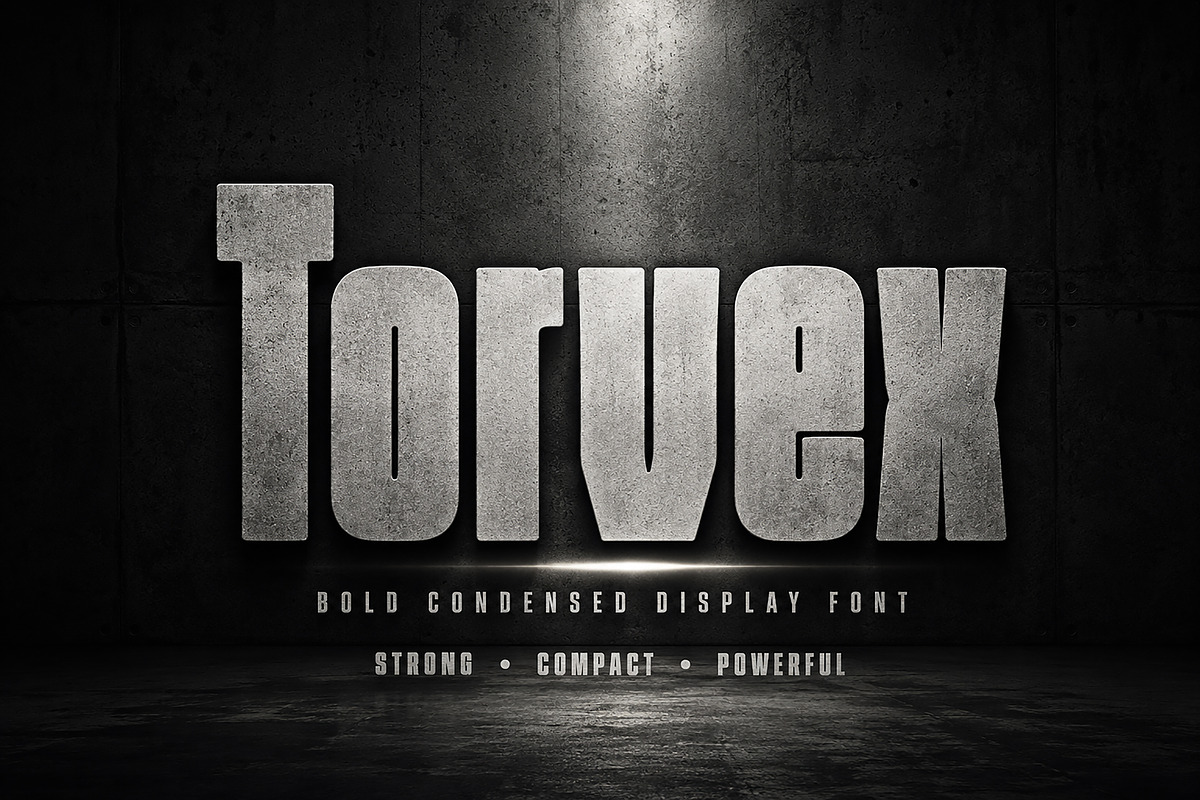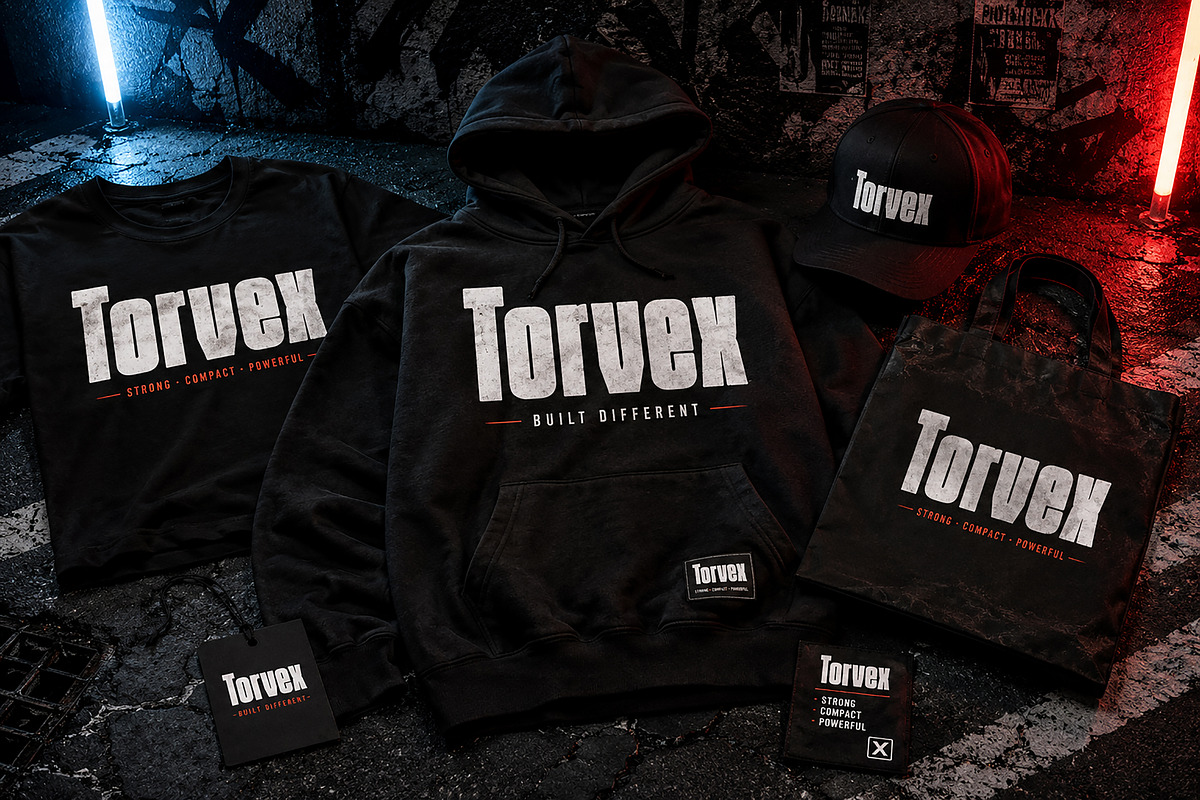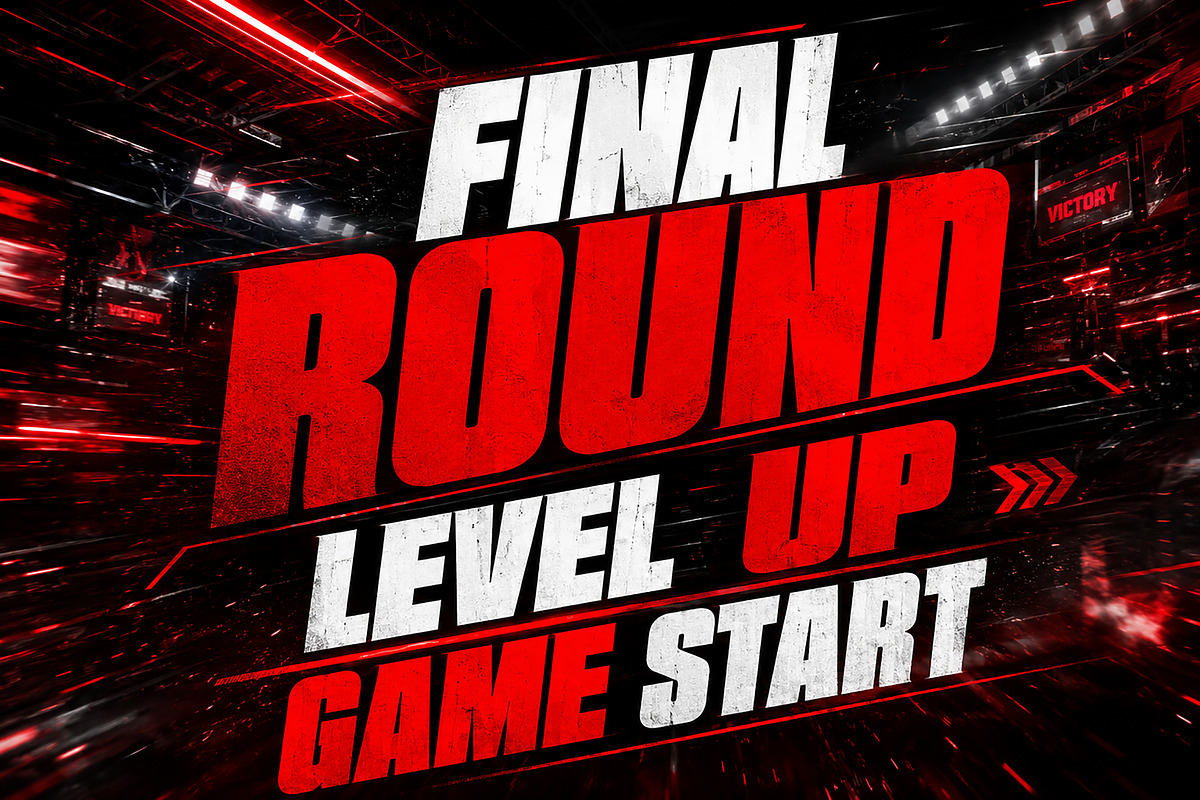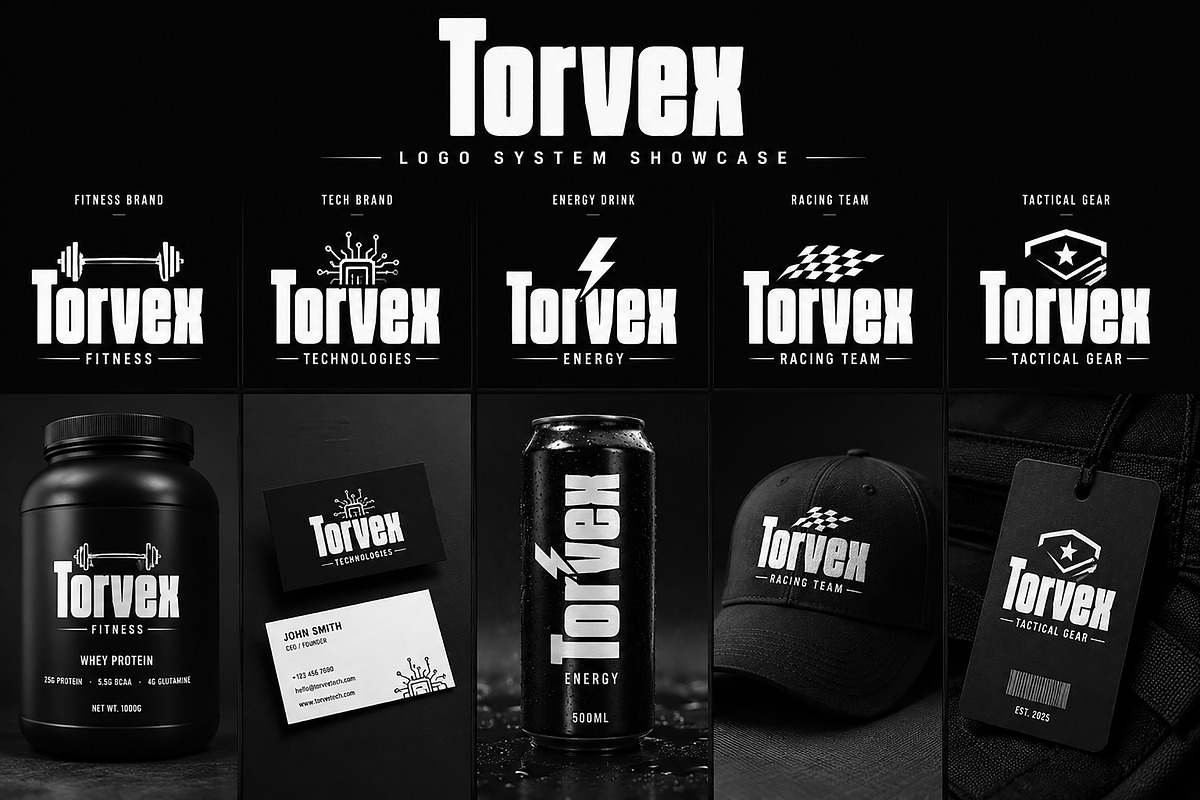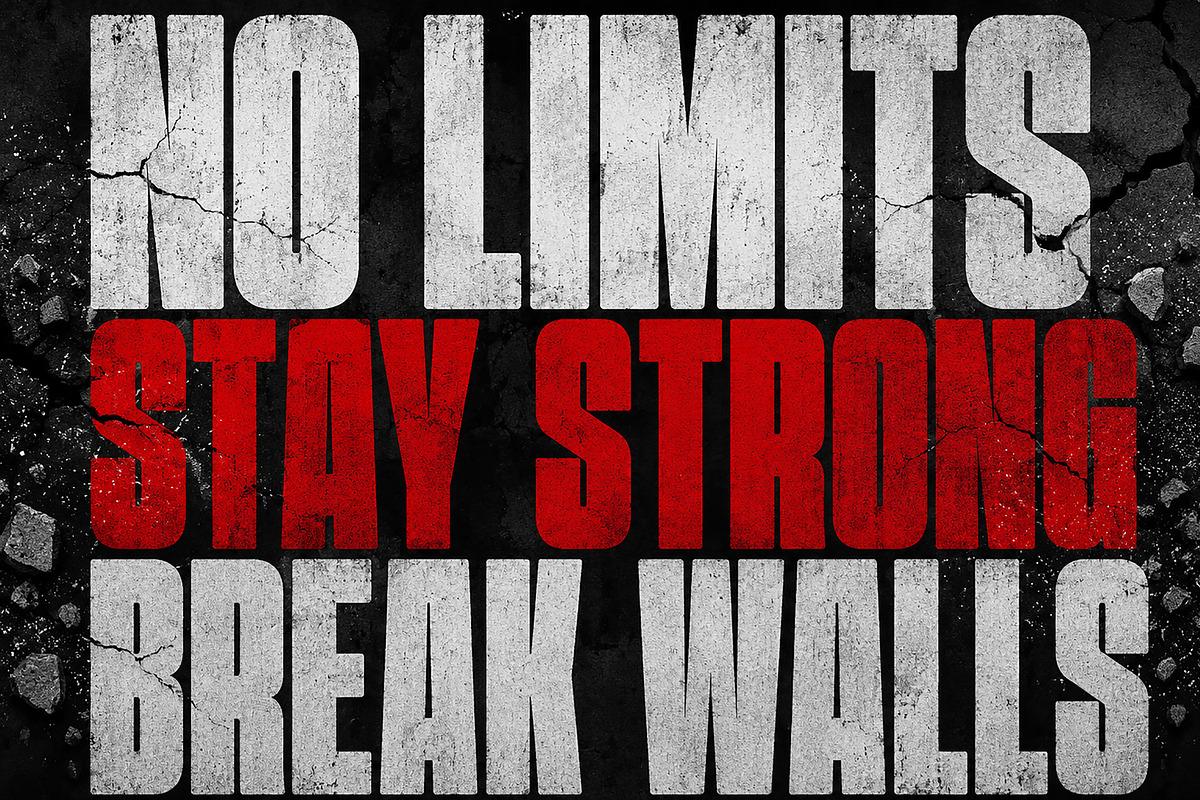
Torvex
Torvex is a bold condensed display font built for impact. Designed with strong vertical strokes, tight spacing, and powerful letterforms, Torvex delivers an aggressive and modern presence perfect for attention-grabbing headlines and branding.
Its compact structure makes it highly effective for posters, sports branding, gaming titles, streetwear designs, logos, packaging, and promotional graphics. Whether you're building an esports identity, a fitness brand, or bold merchandise, Torvex brings strength, energy, and confidence to your design.
Torvex is crafted to stand out in large sizes and create unforgettable visual impact across both digital and print projects.
Sports Branding
Gaming Titles
Streetwear Design
Posters & Headlines
Fitness Branding
Racing Graphics
Esports Identity
Merchandise Design
Make your designs louder, stronger, and impossible to ignore with Torvex.